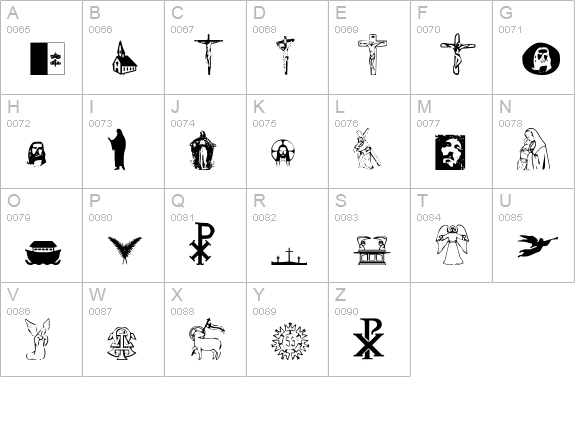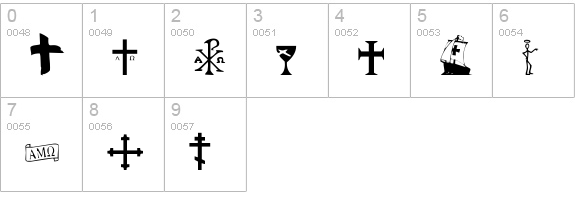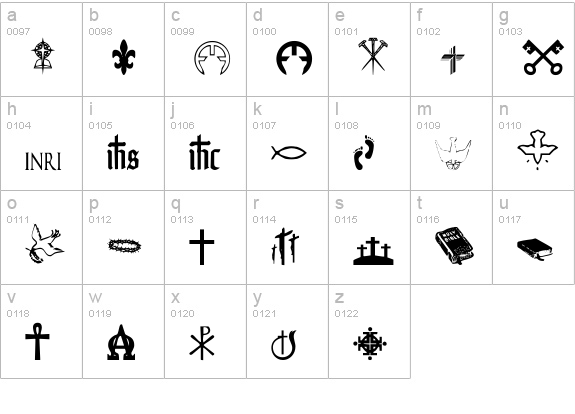
Christendom Font Details
Christendom font is a timeless and elegant typeface that brings a touch of sophistication to any design project. With its graceful curves and classic styling, this font is perfect for adding a touch of refinement to logos, invitations, and more. The versatility of Christendom font makes it suitable for a wide range of applications, from branding to editorial design. The best part? Christendom font is available for free download at FontsMarket.com. So whether you're a designer looking to elevate your projects or a hobbyist wanting to add a touch of flair to your creations, Christendom font is the perfect choice. Download it today and let your creativity shine with this beautifully crafted typeface.